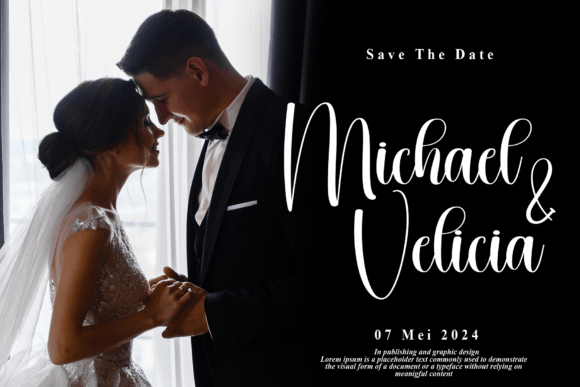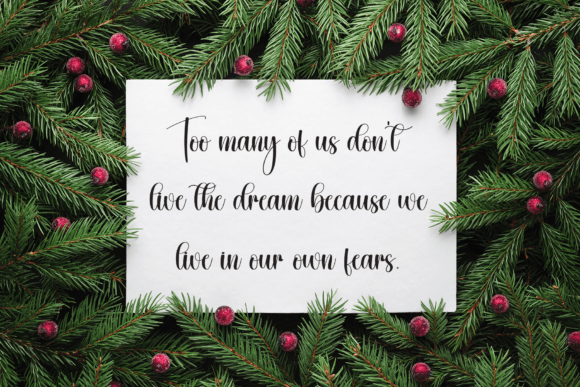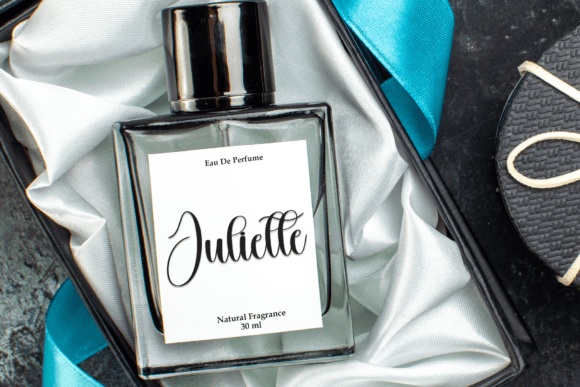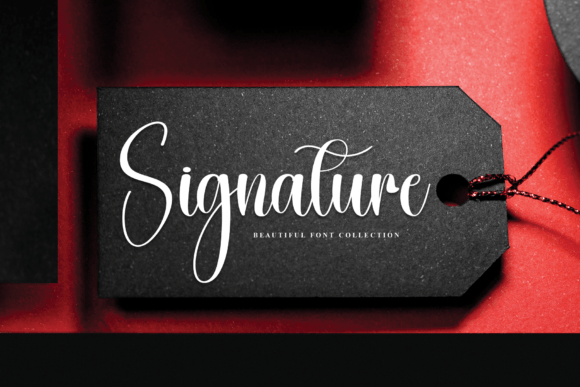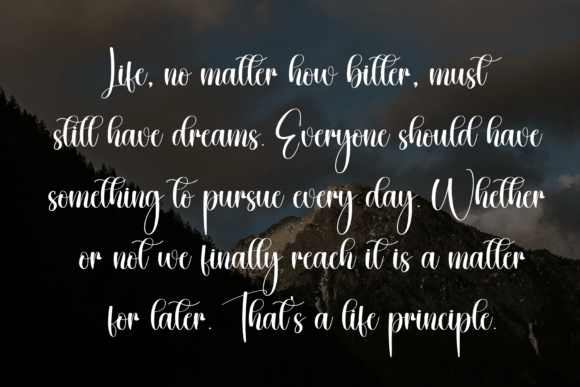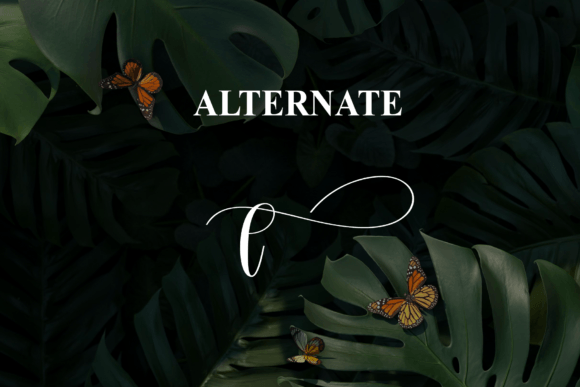
The Perfect Petal: Unveiling the Botanical Font
Have you ever been inspired by a delicate flower or a handwritten note from a loved one? For many of us, the beauty of nature and the charm of handwritten scripts evoke a sense of warmth and elegance. As designers, we’re constantly seeking ways to infuse our creations with this same sense of style and sophistication.
Enter the Botanical Font, a stunning script font that captures the essence of handwritten elegance. Whether you’re crafting a wedding invitation, a heartfelt thank-you note, or a logo that exudes refinement, this font is the perfect choice. Its versatility and timelessness make it a valuable addition to any designer’s toolkit, allowing them to create pieces that are not only visually stunning but also deeply personal.
Key Features of Botanical Font
- Font Family: Botanical Font is a unique and elegant script font, ideal for botanical and nature-inspired designs.
- Unique Characteristics: Features intricate, hand-drawn letterforms with natural, organic shapes and subtle texture, evoking a sense of botanical and natural elements.
Botanical Font Review
Overall, I’m quite impressed with the Botanical Font, but as with any design, it’s not perfect.
- The Botanical Font’s unique blend of modern and traditional elements is a great starting point for creating visually appealing designs.
- The font’s high x-height and well-spaced letters make it easy to read, even at smaller font sizes.
- The wide range of styles and weights available allows for a lot of creative flexibility.
- The font’s design can be a bit inconsistent in certain weights, which may affect its overall cohesiveness.
The Botanical Font is a great choice for designers looking for a unique and versatile font. While it may have some limitations, its strengths far outweigh its weaknesses. With a bit of finesse, the Botanical Font can elevate any design project and leave a lasting impression.
For the most effective use of Botanical Font, consider the following tips:
- Use the font in conjunction with floral or botanical-inspired graphics.
- Choose a muted color palette to let the font stand out.
- Use the font in titles or headings to create visual hierarchy.
Alternatives to Botanical Font for Designers
Great Vibes is a modern script font that is perfect for adding a touch of elegance and sophistication to designs. It is ideal for use in logos, invitations, and other creative projects where a flowing, handwritten feel is desired.
Great Vibes is similar to Botanical Font in its flowing, organic feel, but it has a more modern and sleek aesthetic. While Botanical Font has a more traditional, vintage feel, Great Vibes is more versatile and can be used in a wide range of design contexts.
Pacifico is a beautiful, cursive font that is reminiscent of handwritten notes and love letters. It is perfect for use in designs where a romantic, whimsical feel is desired.
Pacifico is similar to Botanical Font in its flowing, cursive feel, but it has a more relaxed and casual aesthetic. While Botanical Font has a more formal and elegant feel, Pacifico is more laid-back and perfect for use in casual designs such as menus, signs, and social media graphics.
Carolyna Pro is a elegant script font that is perfect for use in high-end designs such as luxury branding, fashion, and beauty. It has a sophisticated, refined feel that is ideal for use in designs where a touch of glamour and sophistication is desired.